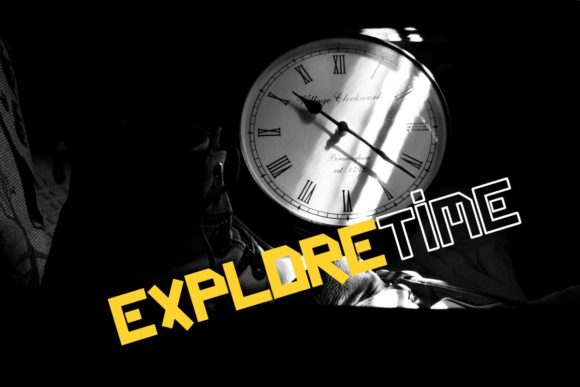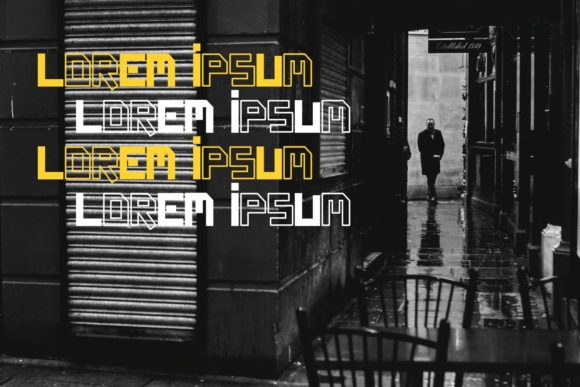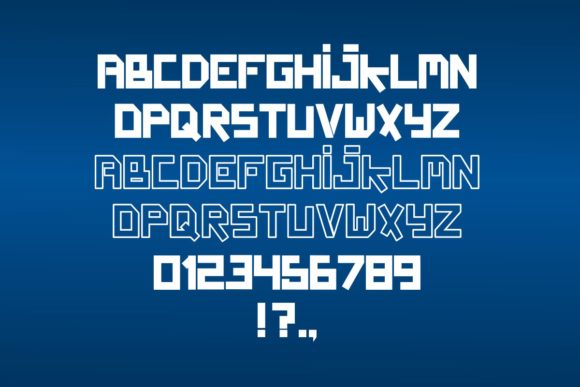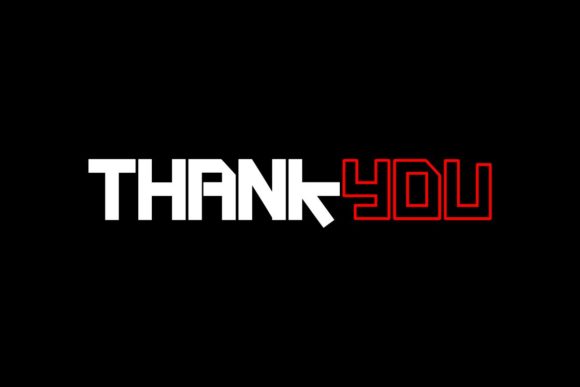
Introducing Buffky 359: The Bold and Authentic Display Font
Are you tired of using the same old fonts for your creative projects? Look no further! Buffky 359 is a bold and authentic display font that is sure to make your designs stand out. This eclectic font celebrates abstract shapes in all their brilliance, adding a touch of uniqueness to any project.
What is Buffky 359?
Buffky 359 is a display font that is perfect for designers and crafters looking to add a bold and authentic touch to their work. The font features abstract shapes that are both eclectic and brilliant, making it ideal for a variety of creative projects. Whether you’re designing a logo, creating a poster, or crafting a social media graphic, Buffky 359 is sure to make your design pop.
Key Features of Buffky 359
- Bold and Authentic: Buffky 359 is a bold and authentic display font that is sure to make a statement.
- Eclectic Shapes: The font features abstract shapes that are both eclectic and brilliant, adding a touch of uniqueness to any project.
- Versatile: Buffky 359 is perfect for a variety of creative projects, including logos, posters, social media graphics, and more.
How to Use Buffky 359
- Use it as a Headline Font: Buffky 359 is perfect for headlines and titles, adding a bold and authentic touch to any design.
- Experiment with Colors: The font looks great in a variety of colors, so don’t be afraid to experiment and find the perfect hue for your design.
- Pair it with Other Fonts: Buffky 359 pairs well with other fonts, so try combining it with a sans-serif font for a unique look.
Benefits of Using Buffky 359
There are many benefits to using Buffky 359 in your designs. Here are a few:
- Stand Out from the Crowd: Buffky 359 is a unique and eye-catching font that is sure to make your designs stand out from the crowd.
- Add a Touch of Authenticity: The font’s bold and authentic style adds a touch of authenticity to any design, making it perfect for brands looking to establish a strong identity.
- Increase Creativity: Buffky 359’s eclectic shapes and bold style are sure to inspire creativity and add a touch of whimsy to any design.
In conclusion, Buffky 359 is a bold and authentic display font that is perfect for designers and crafters looking to add a unique touch to their creative projects. With its eclectic shapes and versatile style, Buffky 359 is sure to make your designs stand out. So why wait? Download Buffky 359 today and start adding a touch of authenticity and creativity to your designs!